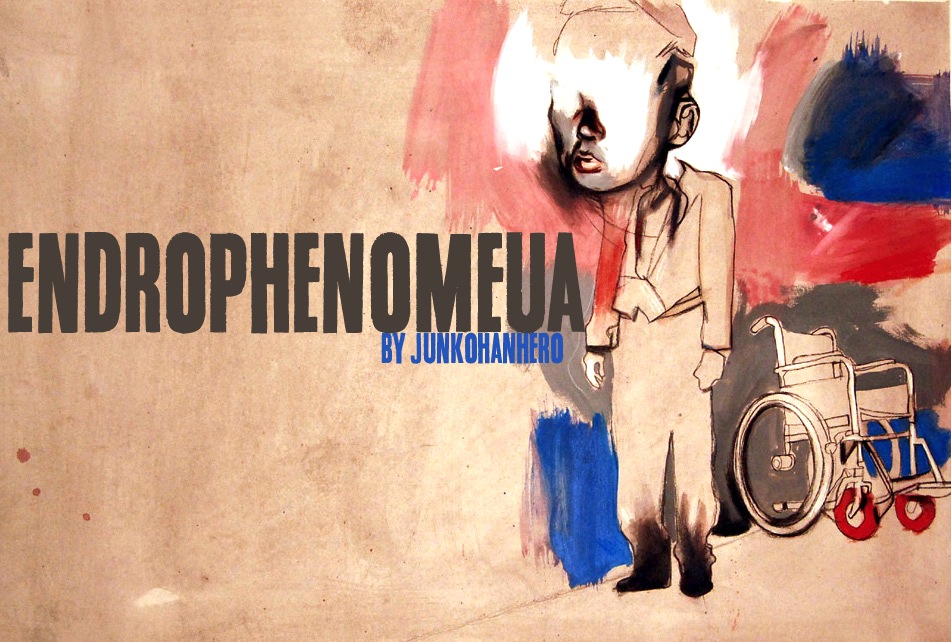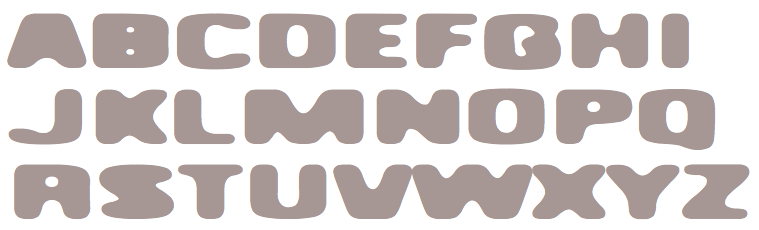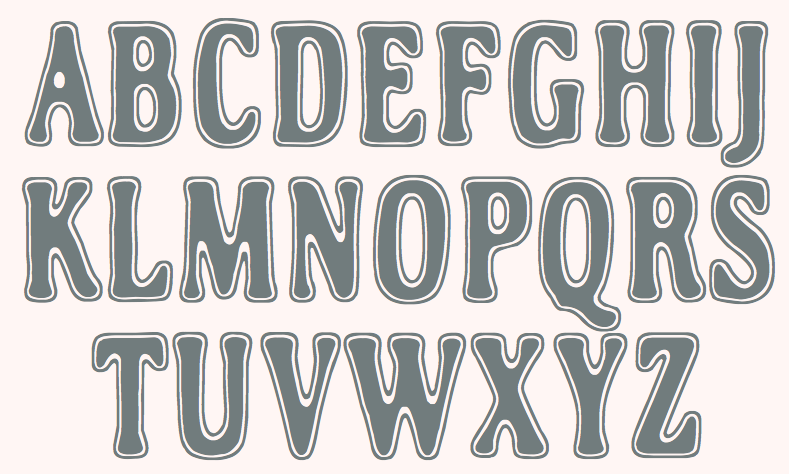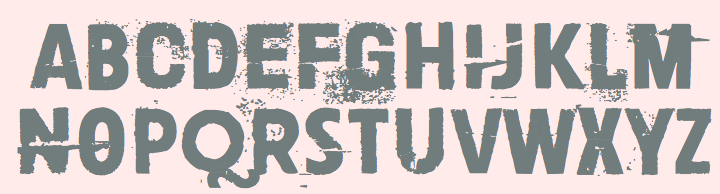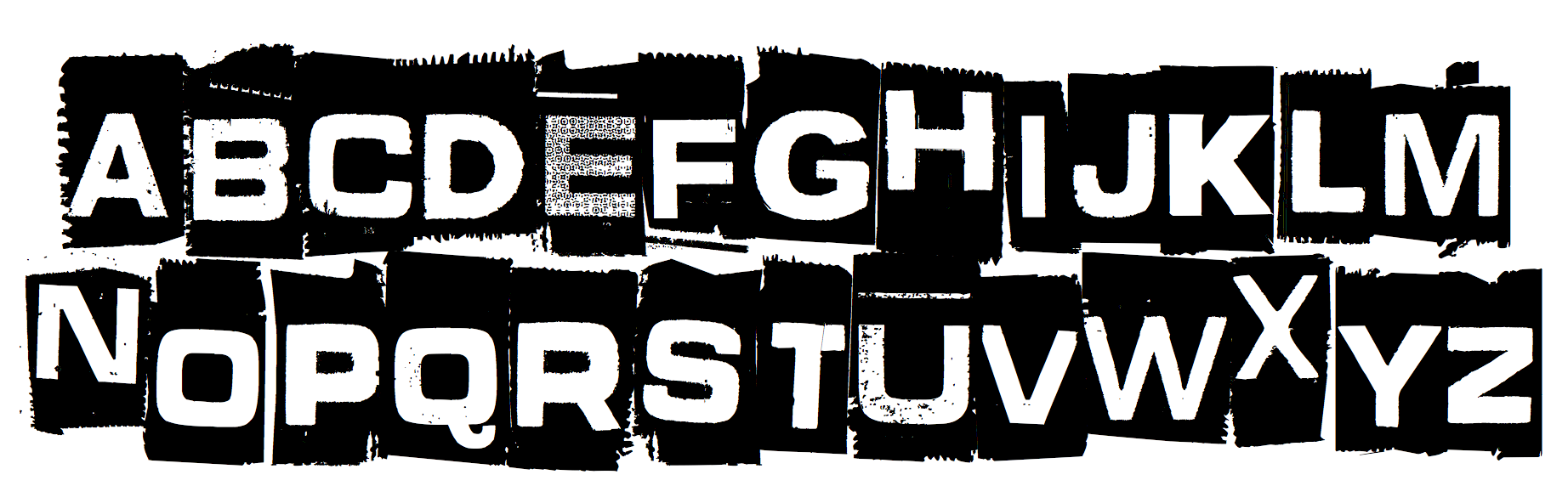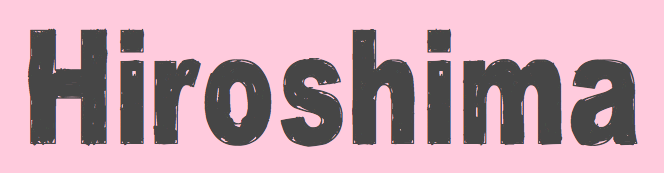
Juha Korhonen
Juha Korhonen (b. 1966, aka Junkohanhero) is a Finnish artist and type designer, who created these free fonts, mostly in the grunge genre:
• In 2006: Tasapainoaisti (grunge), Type-Ra (old typewriter), 60 Sekuntia (grunge), Waving My Arms in the Air (dingbats), Cold Night for Alligators (grunge), Shangri-La (handwriting), Horros, How Can I Organize My Garage?, They're coming to take me away, Hullunkruunu (grunge), Liitu (grunge), Snakepit (dings), In My Head (grunge), FCockroach (grunge), 3-2-1 Jungbats (which includes a Deux Chevaux!), Aamunkoi (handwriting), Not now, I have a headache!, Kulminoituva, Kallot (skeleton dingbats), Ummagumma (handwriting), finitimusiungo, jungodingbats, Junkos Typewriter (almost a ransom note font), notakangaroo (handwriting), Minenookenguru, ympyroity.
• In 2007: 215000E, 6000km, Gubben-I-L, Hevonen, Horros, IKHIOOGLA2, IKHIOOGLA3, IKHIOOGLAcow, IKHIOOGLAone, IKHIOOGLAwithout, Postinkantaja-Job (ransom note face), They're-coming-to-take-me-away, Jungobungo (ransom note), Nollapistet (grunge), VieraskirjanPeto (skull dingbats), Maksukehoitus (white on black), Avain (dingbats of keys), Pink Bazooka, Phorssa (ransom note), Bones (pirate font), 215000EURO (ransom note), DINGDONG (dingbats including a 2CV), CKAS (tape dingbats), JoskusEi (grunge), Puoli-ihminen, Zupagargonizer, ZupagargonizerT, Puoli Ihminen (hand-printed), Polla (a great scratchy ink stain lettering font in the style of Treefrog), Wahroonga, Tienpaalla (traffic signs), Typenoksidi (old typewriter), Pozo, Pozotwo, Pozothree, Pozofour (Kafkaesque). He also made the dingbats Avain, Tajunnan-tuolla-puolen (movie dingbats), Vieraskirjan-Peto, Payday (white on black).
• In 2008: Melkein Aito Kopio (tool dingbats), Znort3000 (white on black grungy typewriter), Oravanpyörä (white on black outline face), Ellet Niin (ransom note face), Kuusinollakahdeksan (ransom note font), Jadefedga08, Jadefedgah80, Jadefedgah8002 (all ransom note fonts), Jormadorka (more ransom notes), Maaliskuu (handwriting), PajaRaja, Aikasiirtyma, Bugghet.
• In 2009: Tarkistatiedot, Bugebol, Harmaa Perkele (grungy outline face), Huomenna (grunge outline), Betelgeuse (hand-printed), Merkurius (more grungy outlines), GhundZiliag, Laboratoriokoira (grunge), PolviHumppilasanoo.
• In 2010: Tammikuunkolmas, Kosminentaustasateily (old typewriter), SinisenharmaaPerkele, Osasto329suljettu.
• In 2011: 19000paarmaa, Tunnepinta, Vuosivuodelta (grunge).
• In 2014: Adieresis, Air-Atlas, Appendix (ransom note font), Bactosaurus, Bad-Pizza-wth-Pepperoni, Bad-Pizza, Bakesaurus, Balochisaurus, Bambiraptor, Beast-Of-Burden, Bilbao (a fat rough brush face), Birds-Requiem-Svart, Birds-Requiem, Bug-Report, Burgerbuzz, Buzz-Aloha, BwheroGreeZero, Cactus-Tequila, Charlie Dont Surf, Chryse-Planitia, Culdesac, Cyberpnuk2, DSIODRER, DSIODRER2, Damsterdam, Downleft (3d typeface), Drop!, Existence, Firebug, GogolSimone&Monroe (textured), GROmagnon, Gromagroo, Handful of Nothing (grunge), Hangen-henki, Hangover, Haudankorva, Helleplus 32, Hetkea Myohemmin, Hiekkalasi, huhtikuu, Human Error, Hyeenan-haukotus, Inertia-Creeps, I Wanna Be Your Dog, Jamaica Aroma (grunge), Jazz Zebra, Jockey Full of Bourbon (white on black letters), Jupiter (children's script), Kaktuspiste, Kalmari (blackletter), Keskiyon-Lumisade, Kothika (grungy blackletter), Krakle!, Kulkeuma, Kuumotus, Lasihiekka, Lean on me, Liima,-paperi,-sakset-2 (ransom note font), Llama-Grazy, Llama-Mad, Louis Cypher, Lumenharmaa, Lumihyeena (ransom note font), Lyhyt-Lauantai (children's script), Me-and-your-mother, Mechanical-Machine (old typewriter), Metalbox, Mustasurma, Muurahaiskarhu (weathered calligraphic script), Nasty MSG, Neptunus, Nirhauma, Nopee Torstai, Noppalukemat, Onion-soup, Paltamo 88300, Persona Non Grata (grungy ransom note font), Pintaväre, Plastika-Elektronika, Pyromaani, Quark Zone, Quiet Evening (old typewriter typeface), Quiet Zoo, Red Rabbit, Rho Cassiopeiae, RGMB 6044 Str, Rottapuisto, Ruoste, Rush-Minute, Rust Never Sleeps, Sadannes, Sensory Cortex, Sensuroitu, Siamese-Twins, Singalonga, Singapore, Sitruunahyeena, Skinny Zebra (shaded face), Snapz!, Soul-Sister, Stranger-In-You, Takapiru2, Tempo-Minimo-Bass, Terra, Terraario, Terrieri, Territorio, Terrorisoija, Tomorrow-Comes-Today, Torstai-perjantai, Tricky-Christine (all caps Treefrog style inky script), Trolli, Tulihuuma, Tulikuume, Typetype, Typetys, Typistys, Typpea (old typewriter), Union-soap, Wallowxenon, Whisper in the Dark, White Elk, Wripetyter (old typewriter), Wrong-place-right-time, Wrong-time-right-place, Wrong-time-wrong-place, Xmas Year Zero, Yericho-Punx, ZIGZAGZOEL, Zombie Queen (grungy old typewriter).
• In 2015: 49 Birthdays, A Box For, All Rights Reserved, Almost-like-the-blues, Androidi Pisa, Aurinko, Avojaloin (old typewriter), Boring, Blacklist, Blah-blah-bang, Blank Eye, Burn Out Fade Away, Beyond-These-Things, Can-you-ever-see-a-whole-circle, Children-of-the-revolution, Close-your-eyes, Cut The Crap, Dancing-in-the-dark, Dark-Dream, Dark-was-the-night, Deafening Silence, Destroy-X, Dharma Bum, Dharma Punk, Digi Ziggy, Divisible-Invisible-High, Divisible-Invisible-Low, Drenazmozgow, Dystopia, Eight Days A Week, Endrophenomeua, Ensimmäinen-kevät, Every Little Thing That You Did, Everything is possible, Feeling Babylon (shaded typeface), Fifteen Feet of Pure White Snow, Forty Six, FourFiveSixSevenEight, GalvanizeBurn, Garbage Guerilla, Glingzerminator, Good-And-Evil-Day, Good-And-Evil-Night, Green-Dream, Have-nothing-to-do-with, Hidden Zebra, Holy Cow, Humectez-La-Mouture, Hyvä voittaa pahan, Hugo Z, Ice-cream-for-crow, Ihana-Perkele-Alaston, Ihana-Perkele, I Love You, Instant Karma, Instant-Nirvana, Is That Clear, Is-there-anybody-out-there?, January Threed, Justaword, Kasuaari-kirjastossa, Keveat Sandaalit, Killing Me Softly, Kasuaari-kirjastossa, Kirjainkone (old typewriter), Kirkuvanpunainen kirsikk, Kiss Me My Darling Kiss Me (grunge), Last-living-souls-Dark, Last-living-souls-Dirty, Last-living-souls-Shadow, Last-living-souls, Lauantaiaamu-7:25, Lazy Opossum, Life is so wonderful, Lilith X, Lost in Moments, Lovely Weekend, Lower Atmosphere, Lumi-nauroit, Manamansalo (shaded handcrafted font), Mandelio di Paedre (textured), Metamorphose Requiem (blackletter), Moa, Molienda de Paedra (textured), Moons of Jupiter, Nicotine Love, Nie Zabawne Komik, Nirepnirun-atsum, Nirepnirun-oivuk, Nirepnirun-oknalb, Nollanaama, Onnenmyyra (halftone emulation), Open-your-eyes, Oranssi Hohde (textured), Paljain Jaloin (grunge), Pikku-Julmuri, Pink-T-shirt, Puolelta Toiselle, QWERTYpe (old typewriter), Quicksand-x, Radar Echoes Unclear Atmosphere, Raparperitaivas, Read between the lines, Redhair, Refuse-to-bow-down, Regurgance, Requiem-for-A (blackletter), Rhinoceros (a pretty Treefrog script), Rip-off, Road-to-nowhere, Ronttifontti, Rye Field, Safe-from-harm, Screaming Red, Sekunda, Seven Deadly Sins, Shadow Catcher, Six Feet Under, Slave-only-dreams-to-be-king, Some-Distant-Memory-Dark, Some-Distant-Memory, Something-in-the-air, Something in the Way, Sonic Barrier, Sound of Silence, Syntax Error, Syyskuu-repaleinen, TakeYourClothesOffWhenYouDance, Tango Psychedelia (old typewriter), Tell Us Pangaia, The-Beginning-Of-Memory, Thirteenth Floor 2, This-side-up, Time Goes So Slowly, Toinen Tammikuu, Too-drunk-to-fuck, Uglygoodbad, Uglygoodbaddark, Under the Influence (grungy texture), Unfinished-Sympathy, Universal Mind, Universedge, Universum Invenire, Velvet Queen, Viimeinen-syksy, Villasukat, Walk-with-me-now (letterpress emulation), Waste-of-time, Waveternity, White Elephant, White-funky-rabbit, White-light,-black-line, White Submarine, Windy Indigo, World Without End, Xsdeterminatoer (sic).
• Typefaces from 2015 published in 2016: Dark Monday (ransom note font), Jinzingoer, No More Lies, Cubebroken, Cult-of-the-toucan, Doublpeopl, InvisiblerrorEdge, InvisiblerrorFast, Invisiblerror, Jugglingoose, On-the-horizon, Raccoon, Strawolverine, Wantedo, Edge, Black is not a color, Apocalypse, Disturbo, Black Owl, Spirit Ritual, Woodcut, Animals are like people, Tox Typewriter, I Believe In Life Before Death, Crab, Dieproud, In the deep dark woods, Chic Chak Zubra (Treefrog style), Non Watercolor, April-Fools'-Day-Crazy-vrs, April-Fools'-Day-Silly-vrs, April-Fools'-Day, As-long-as-I-can-hold-my-breath, Floating-tin-can, Head-like-a-hole, Here-Just-Now-Black, Here-Just-Now-Out, Here-Just-Now, Scratch-X-Black, Scratch-X, Shoemaker, Skriik!-Electro-mechanical-mach, Thin-king, Blinded-by-desire, Brake-a-leg, Deja Vu Dive, Greater-than-the-sum-of-its-par, Hell-is-round-the-corner, I-love-the-smell-of-rain, Kopio-639, March-of-the-pigs, Methods-of-escape, Overdose, People-per-square-kilometer, Right-where-it-belongs, The-universe-in-a-nutshell, This-is-nu-jazz, Torture, Trashbox (white on black), Walk-this-way, What-is-this--some-kind-of-joke (white on black), Why-do-we-blink-so-frequently (old typewriter), 2016-Bugs, 3-Times-Recycled-Old-Newspaper, 3TimesRecycledOldNewspaper, Always-Been-Right, Amateur-Dirty, Amateur-Naked, Amateur-Slash, Another-name-for, Brief-Moment-Between, Bubu-Ghost, By-the-way, Contrite-in-spirit, Crash-test-dummy, Dead-end, Dimension-Zero, Dirty-Old-Town, Dreamer-Eternal, Dreamer, Endless-heartache, Feel-the-universe, Found-my-way-out, Grapevine, Grasshopper-Z, GrasshopperZ, Hehku, Here-we-are-now,-entertain-us, Hidden-meanings-Italic, I've-seen-that-face-before, I-Did-It-My-Way, I-tell-you-all-my-secrets, IDidItMyWay, Is-there-time-in-outer-space?, Jokioinen, Kube-Vertiko, KubeVertiko, Lazarus-Oz-Kolsvart, Lazarus-Oz-Moerkt, Lazarus-Oz-Syndfri, Lazarus-Oz, Libertango, More-news-from-nowhere (white-on-black), Now-your-conscience-is-clear, Paradox-Mosaic, Paranoid Orange, Pelkistettya todellisuutta (old typewriter), Piparivahtiperhonen-Itio, Piparivahtiperhonen, Planet-Garbage, Secretly-wishing-for-rain, Send-me-a-postcard, Sun-zoom-spark, Through-the-night (old typewriter), Trash!-More-trash!, Trash-Zydego, Tremolo-Flaw, with-righteous-indignation,-aga, with-righteous-indignation, Dark-Underground, Feelings-On-Off, From-here-to-eternity-too, From-here-to-eternity, Fuga-de-cerebros, Gsubadaslowly, Hell-Finland, Hello-Finland, It-started-here,-again, It-started-here, Lost-in-the-supermarket, Muspi-Merol-Krad, Muspi-Merol-Mirg, Muspi-Merol-Thgil, Razterhunch-Burn (textured typeface), Razterhunch-Shadow, Razterhunch, Sister-Morphine, Syntinen-ihminen-on-kaunis-ihmi, Tropic-of-Cancer, Velvet-Dream, Viiden-pennin-operetti, Auribus-tenere-lupum, Big-Bubu, Completely-Nonsense, Corner-Dark-Distance, Corner-Dark-Just-X, Corner-Dark (white on black font), How-do-you-sleep?, How-low-is-low?, Karmakooma, Long-distance-call, On-aika-soittaa-sinfonia, Pink-Bunny-2, Pink-Bunny, Pink-Chaos, Right-to-remain-silent, Rough-Simple.
Typefaces from 2017: Pink Kangaroo, Punktype, Dog Foz Zebra, Mondmonkey, Quiet Horror Story, Strawobbly, Better Get Ready, Flea Market Finds, Background Noise, Rhythm Vino, Echoes, Music For Empty Apartments, Synonym Blank.
Typefaces from 2018: Blockheads (white on black), Blue Sky Blue Grass, Lievidence (a ransom note font), Quick Pangolin, Brillianthre.
• Typefaces from 2020: Mugwort Maximum (grunge), Heart Jungle (textured).
• Typefaces from 2021: Nothing Clean, Central European Time, Examples Of Erosion, Overconsumption, Ransom Blanco Zero, Bullfrog, Damage Red, A Good Day To Die, Everything Experience, Ring Singularity, Grey+Red, Memento Griseo Ruber, Think Harder.